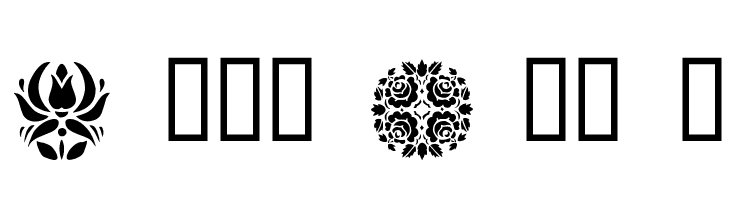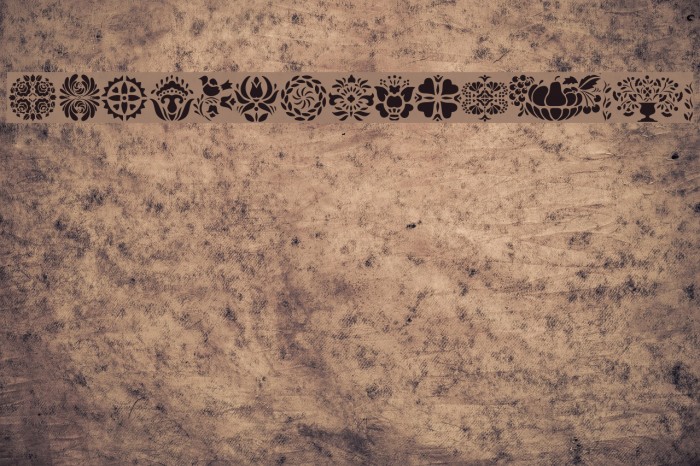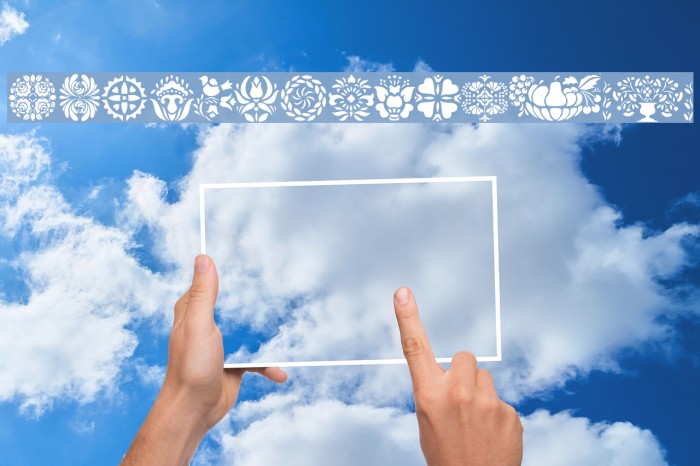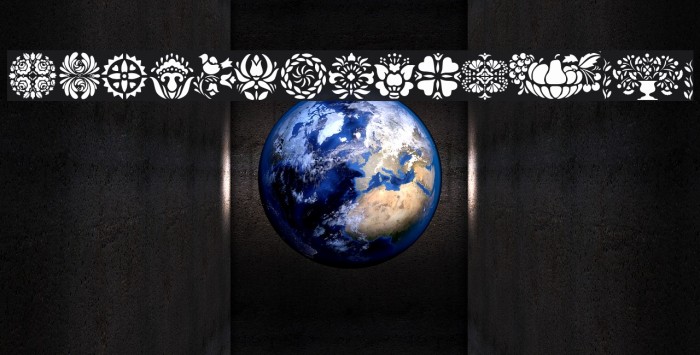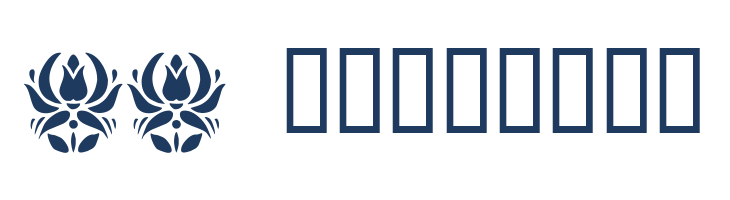
Folk Art 2 Font
Folk Art 2 Description
This is not a valid font. The image contains decorative folk art designs and patterns, which include floral motifs and heart shapes, rather than a traditional alphabet or numeric characters. These elements are more suited for ornamental purposes rather than typographic use.
Overall StyleFolk Art, Decorative
Use CaseDecorative borders, Craft projects
Proposed ProjectsThese designs could be used for decorative borders, craft projects, or folk art-inspired artwork.